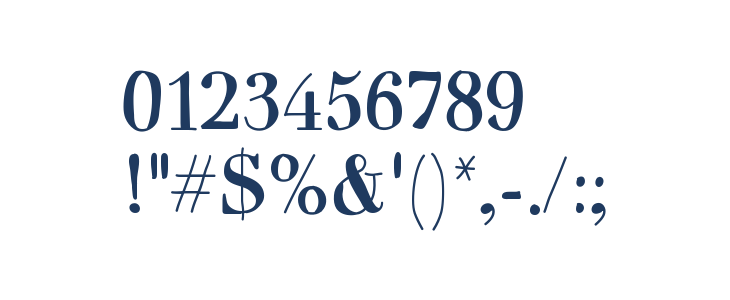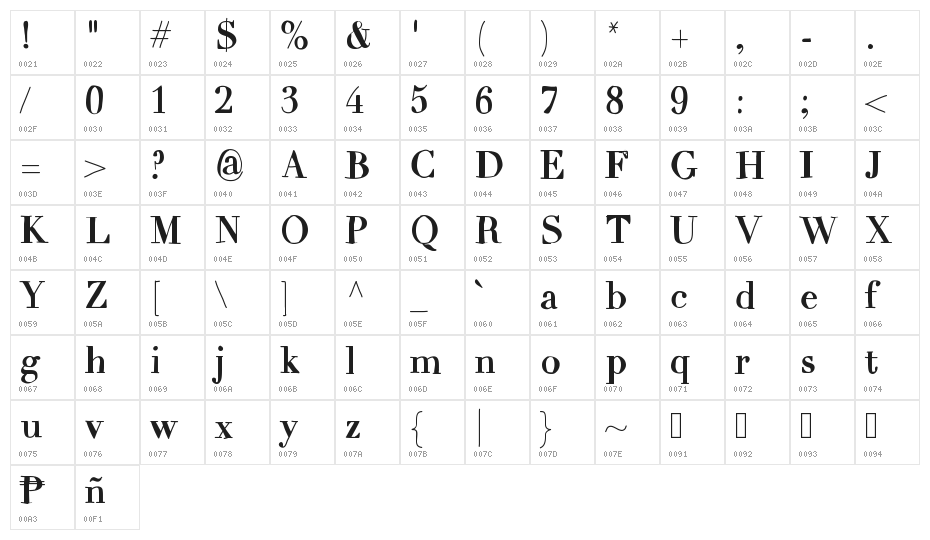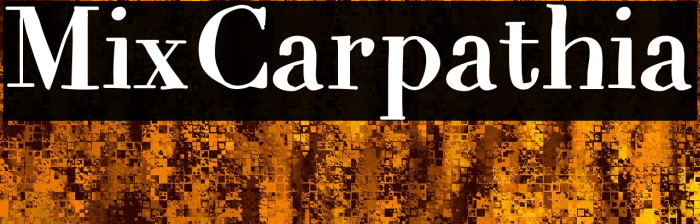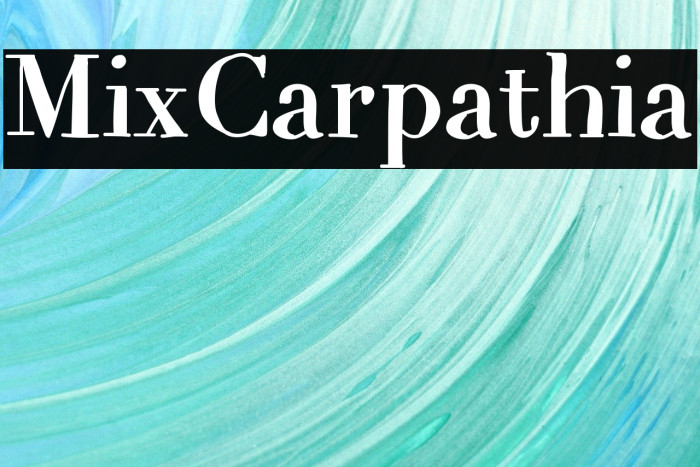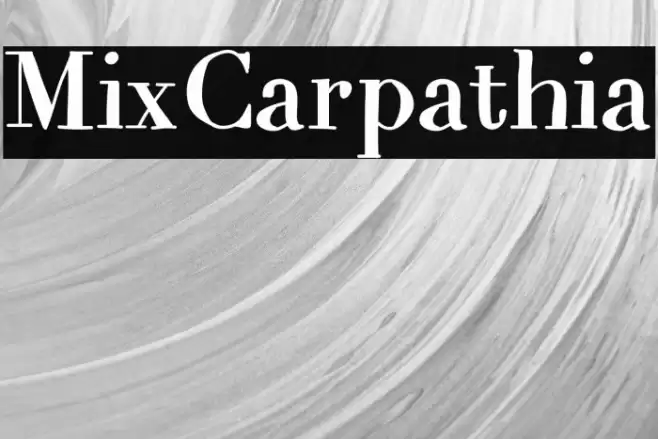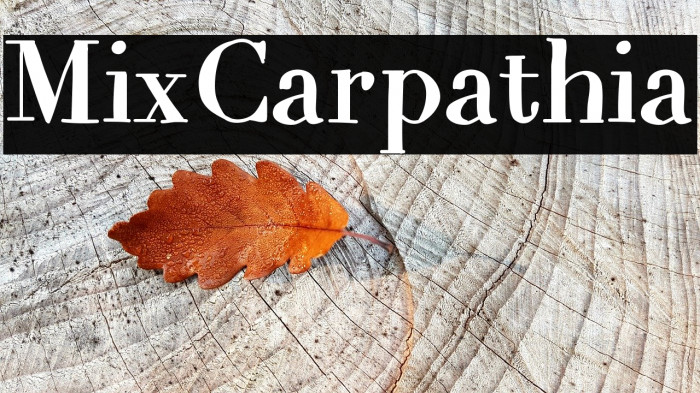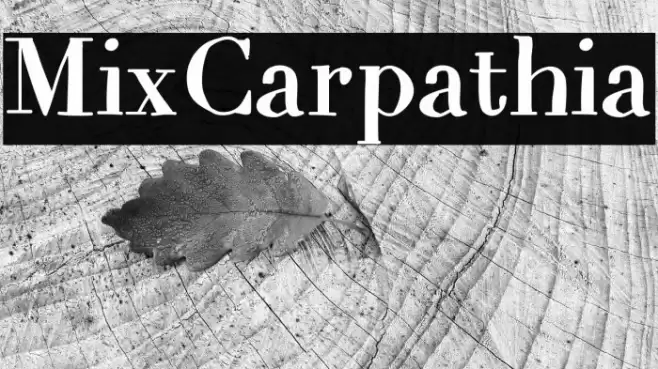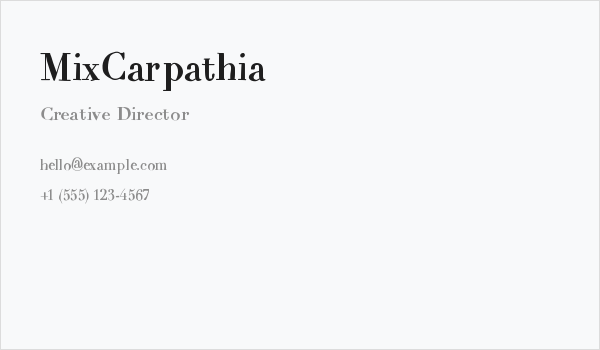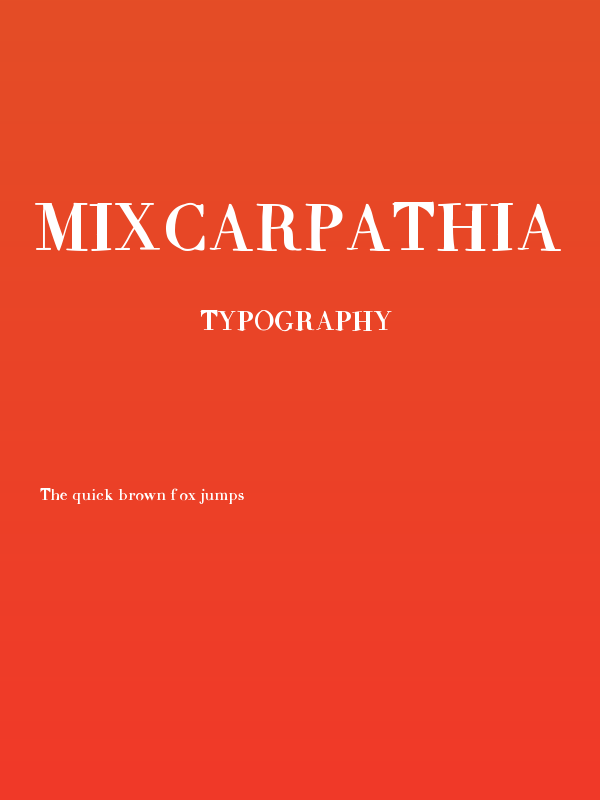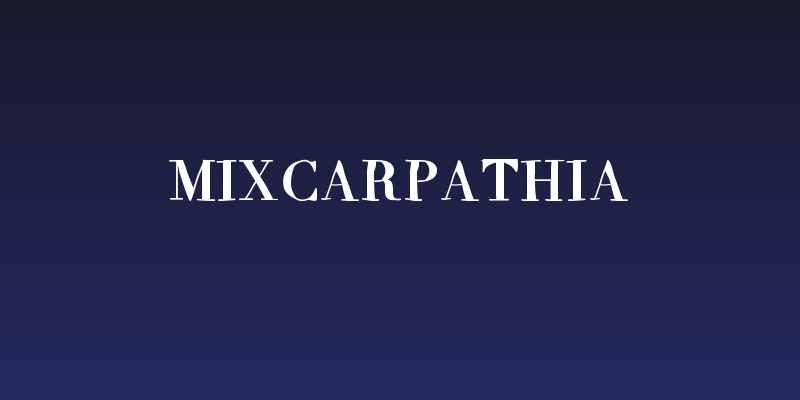
MixCarpathia Font
MixCarpathia Description
This font exhibits a classic serif style with a strong presence and elegant curves. The uppercase letters are bold and commanding, while the lowercase letters maintain a consistent and harmonious flow. The numerals are distinct and well-proportioned, offering clarity and readability. Special characters are thoughtfully designed, maintaining the overall aesthetic of the font. The serifs are pronounced, adding a touch of sophistication and tradition. This font is versatile, suitable for both formal and creative projects, providing a timeless appeal.